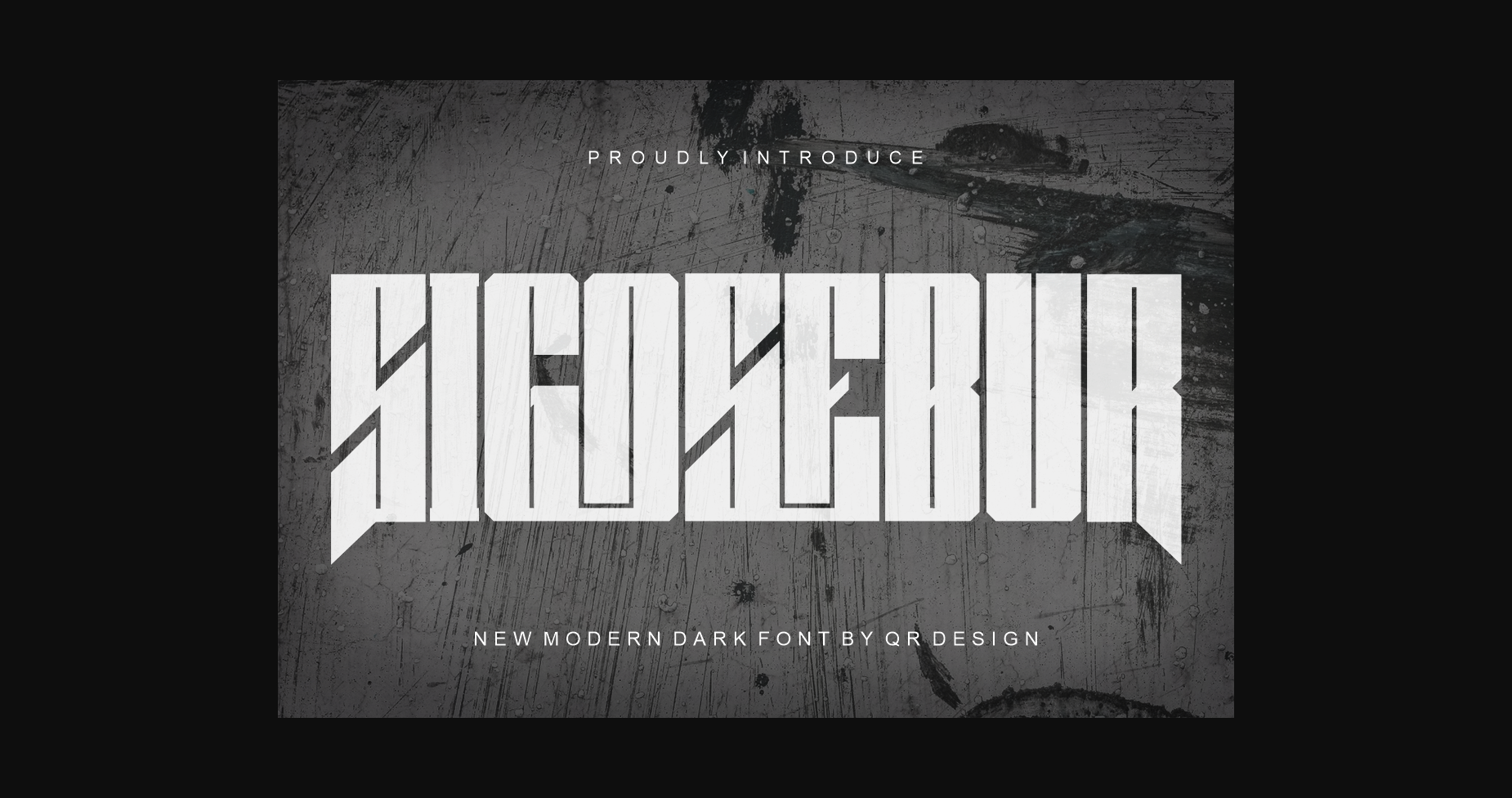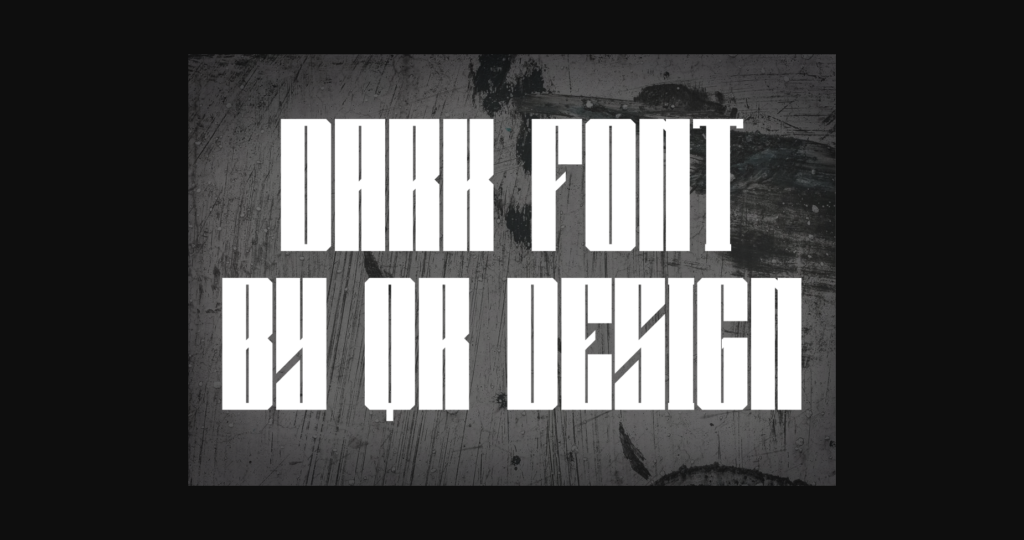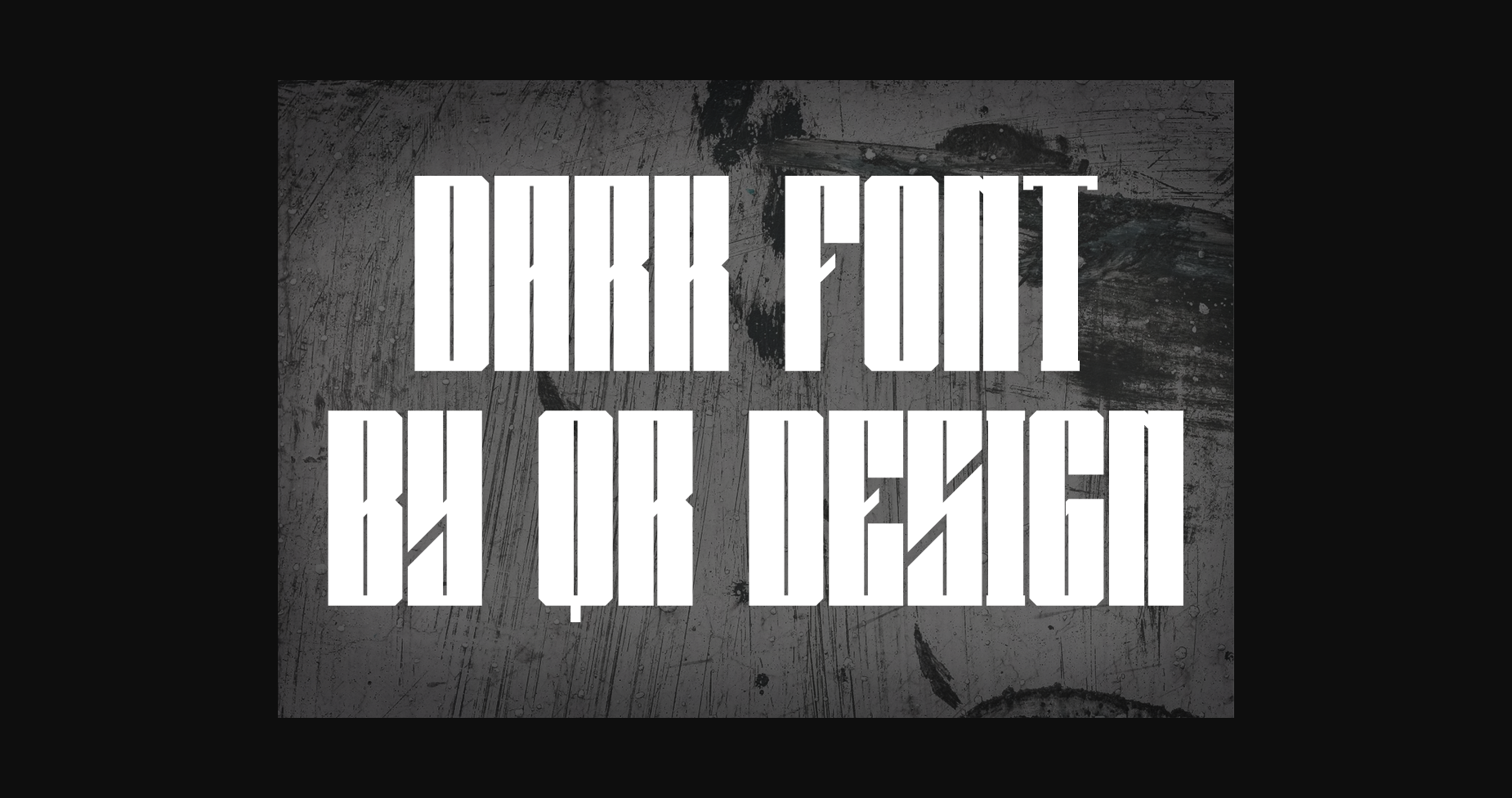
About Sigosebur Font
Sigosebur Font is a bold and authentic display font.
The font is suitable for any branding project like logos, sports, and many more.